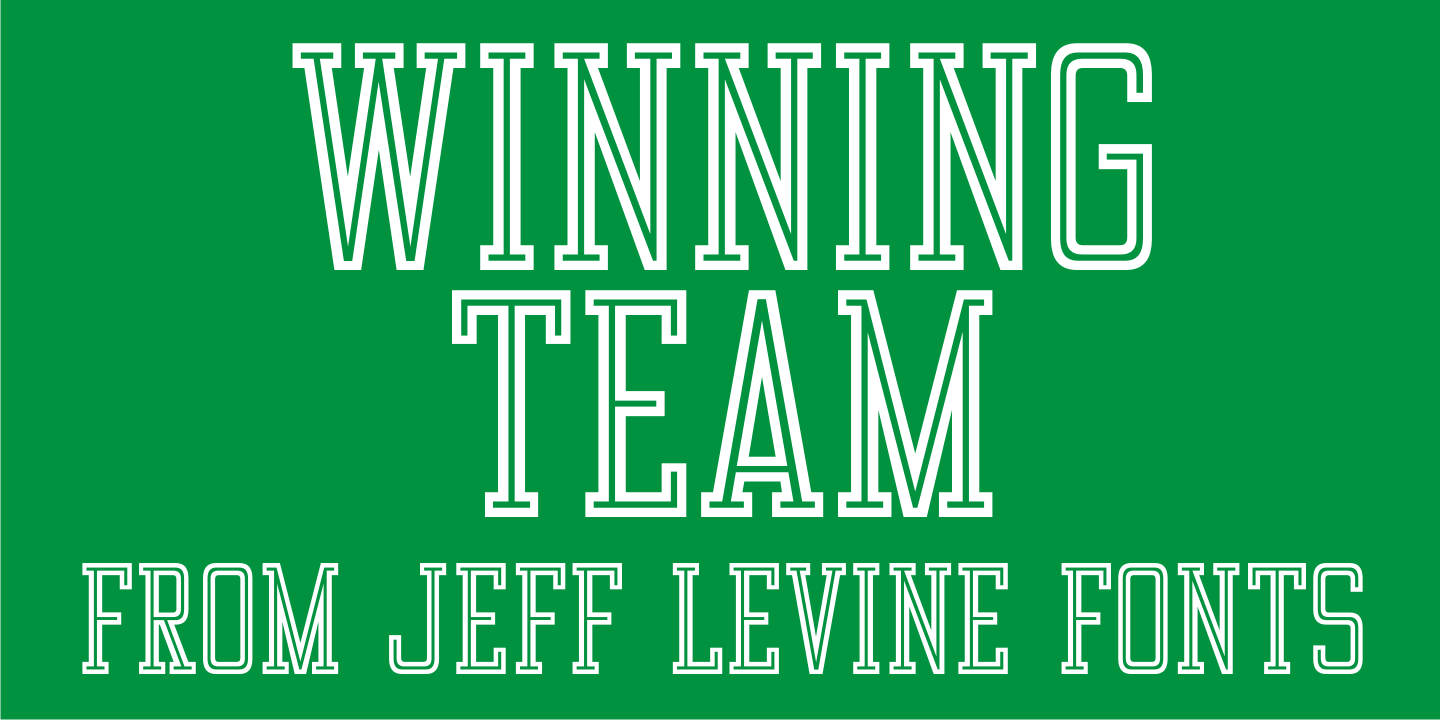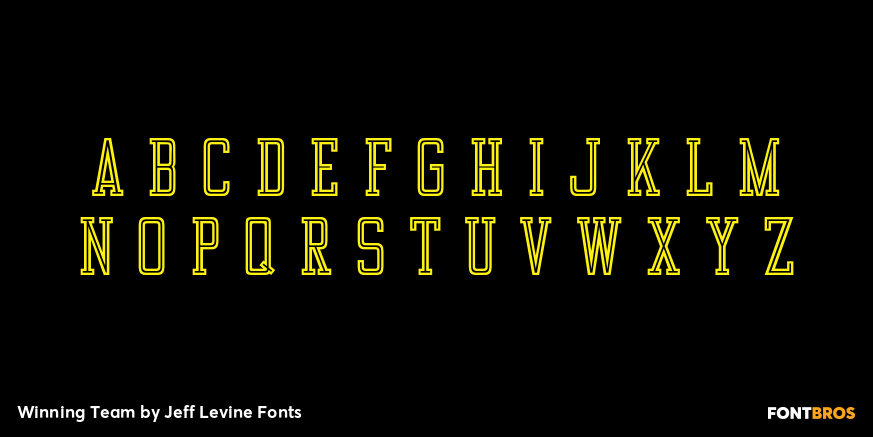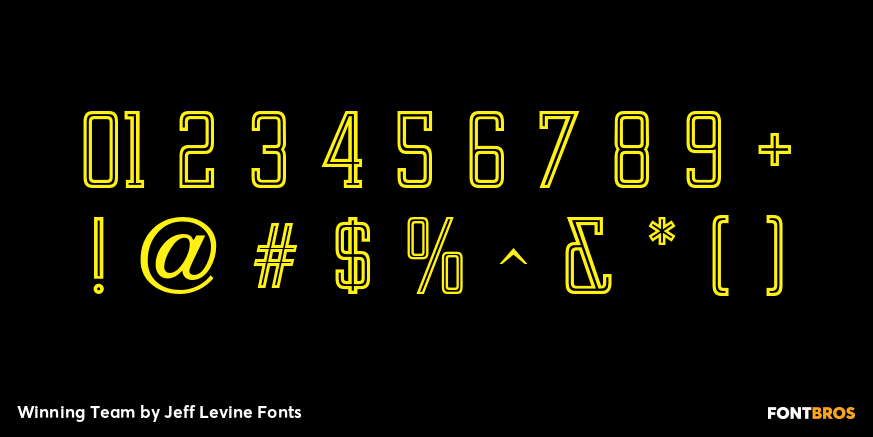
Winning Team
The second volume of the Robbins Music Corporation's "Hollywood Song Folio" features the word "Hollywood" lettered in a condensed block style with inline, strongly reminiscent of sports or college-themed typography. This was the inspiration for Winning Team JNL.